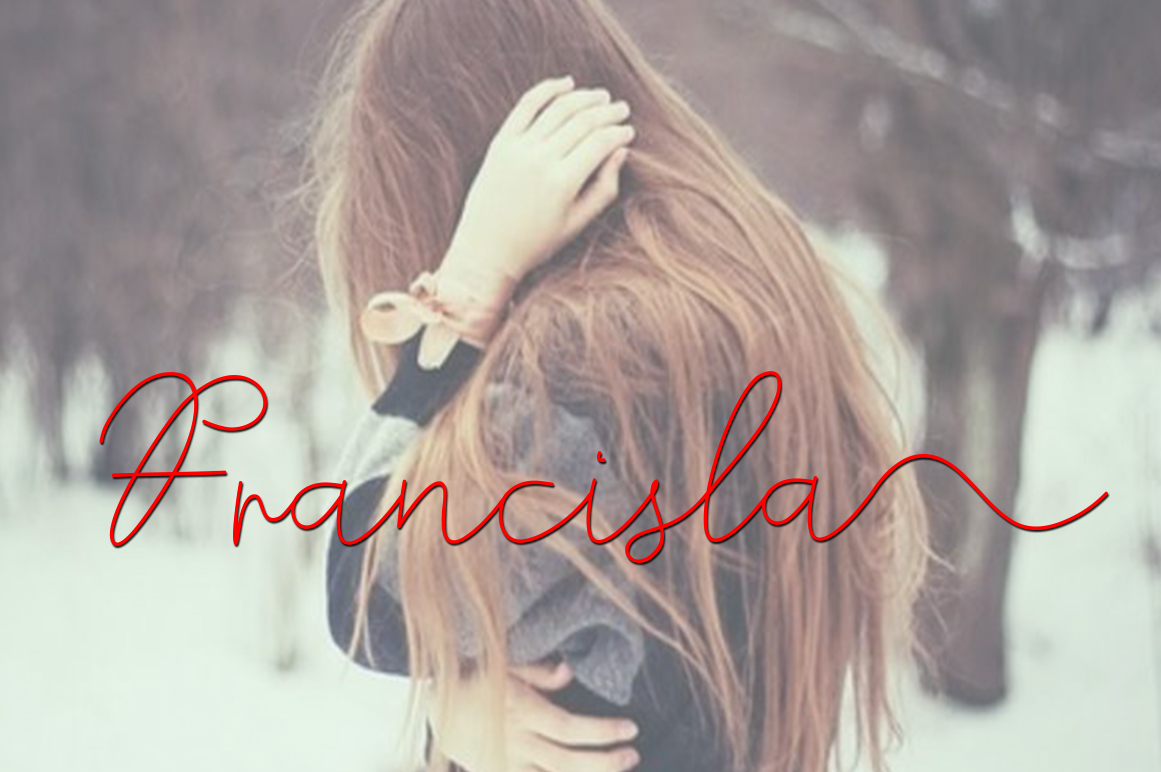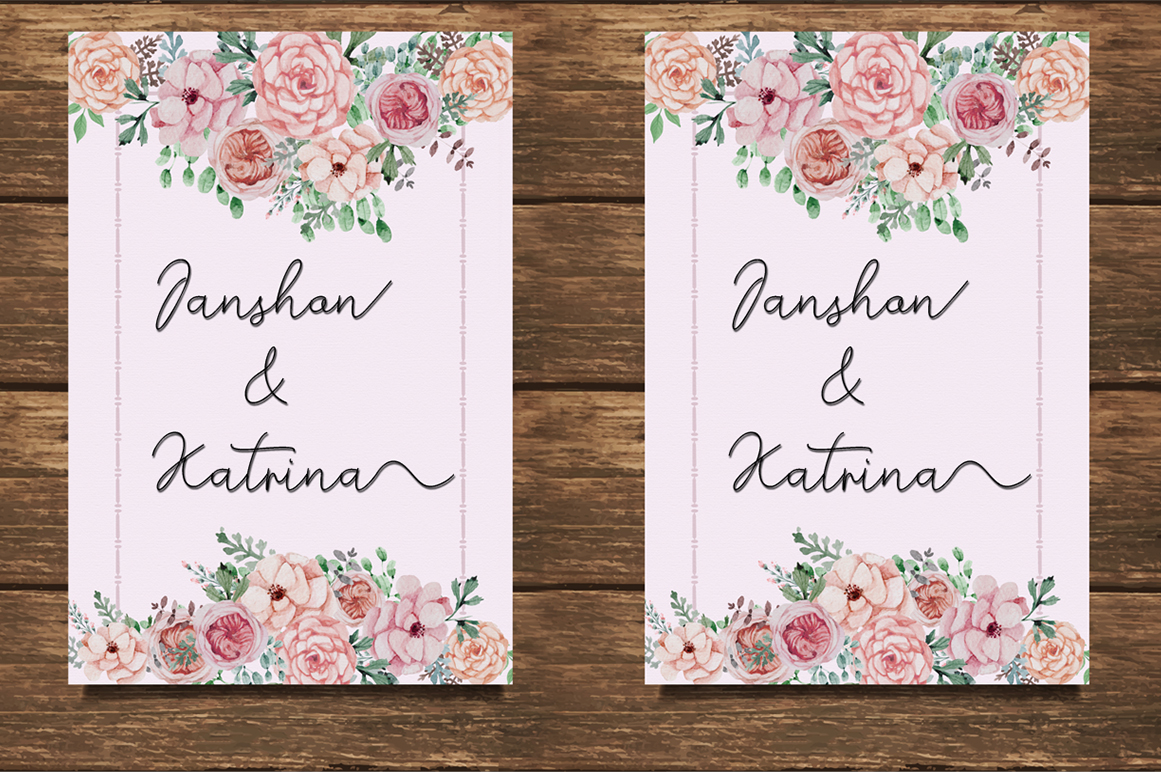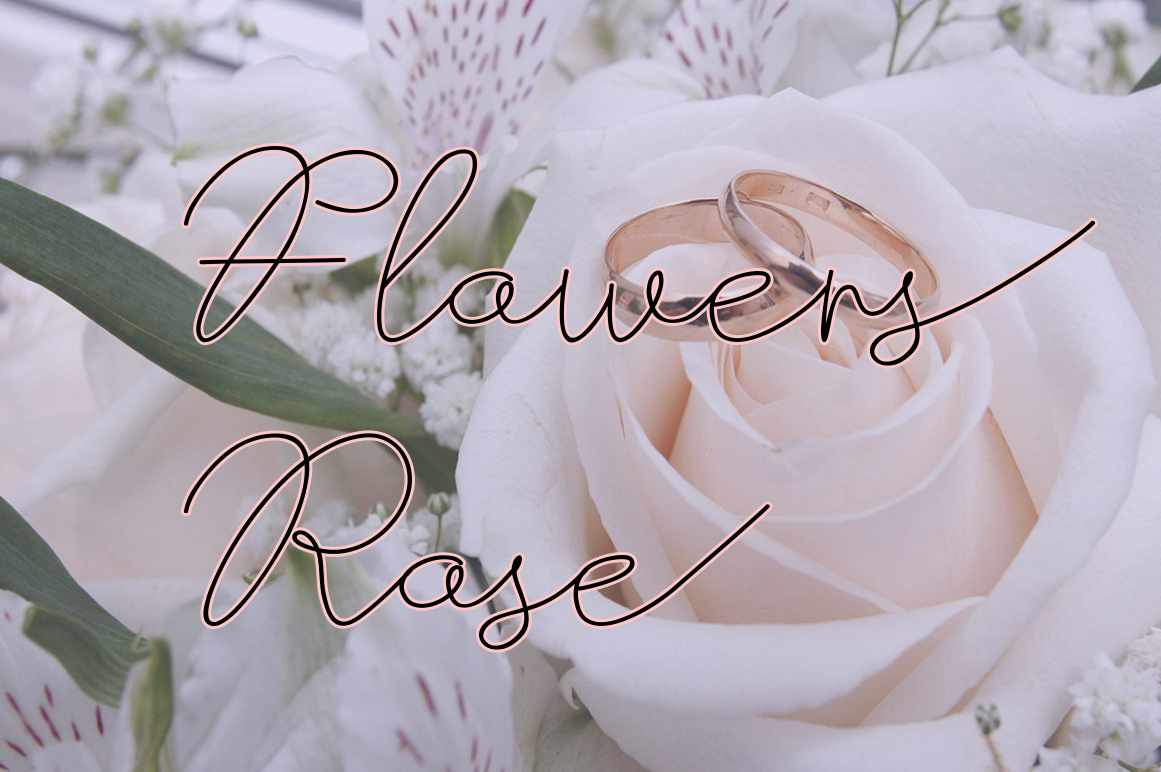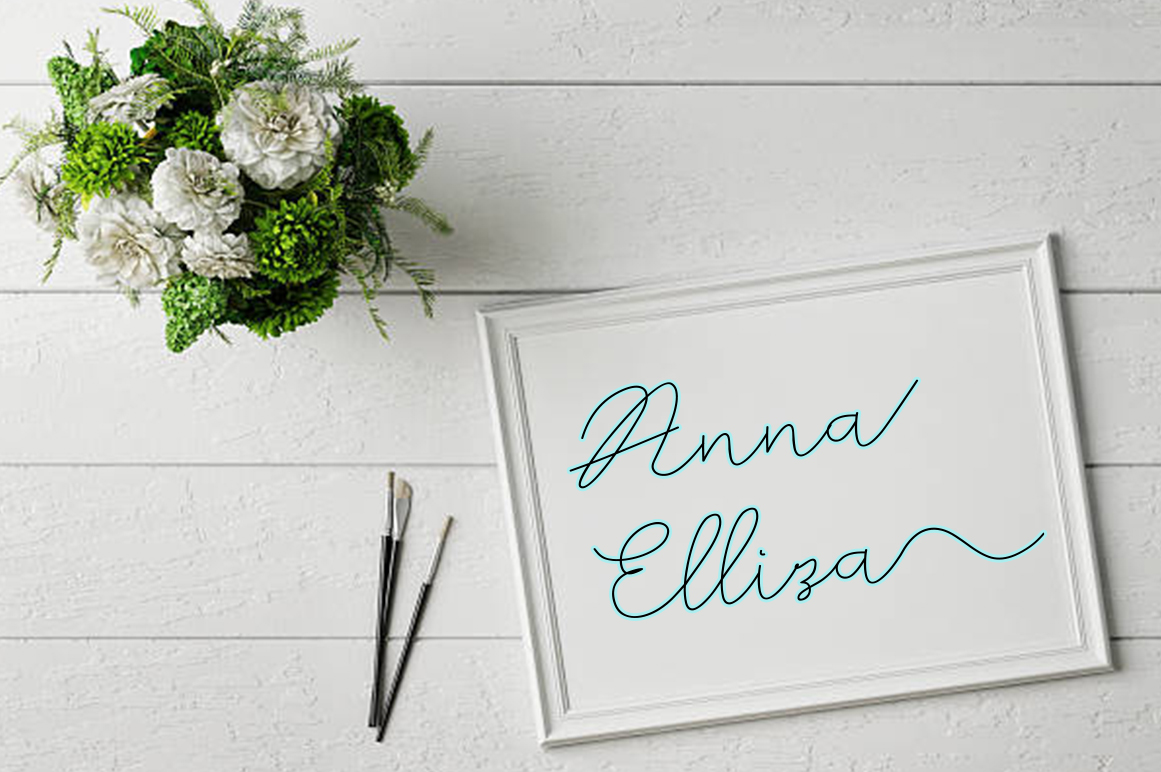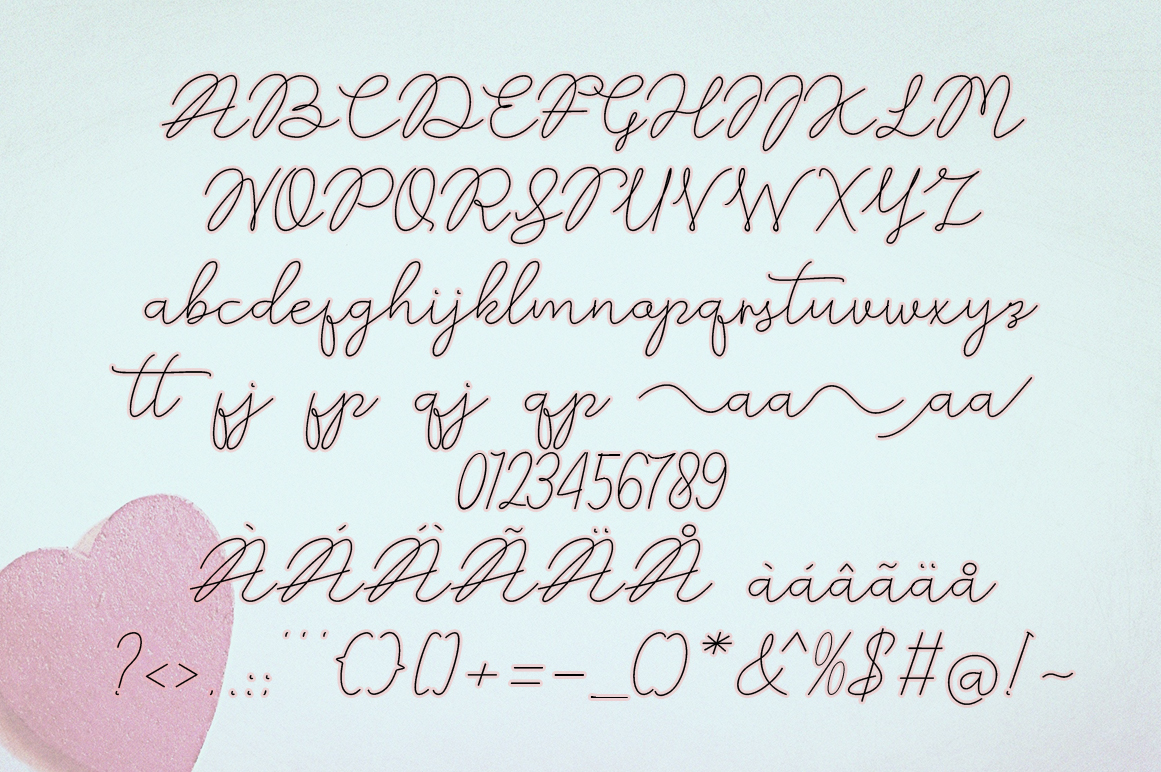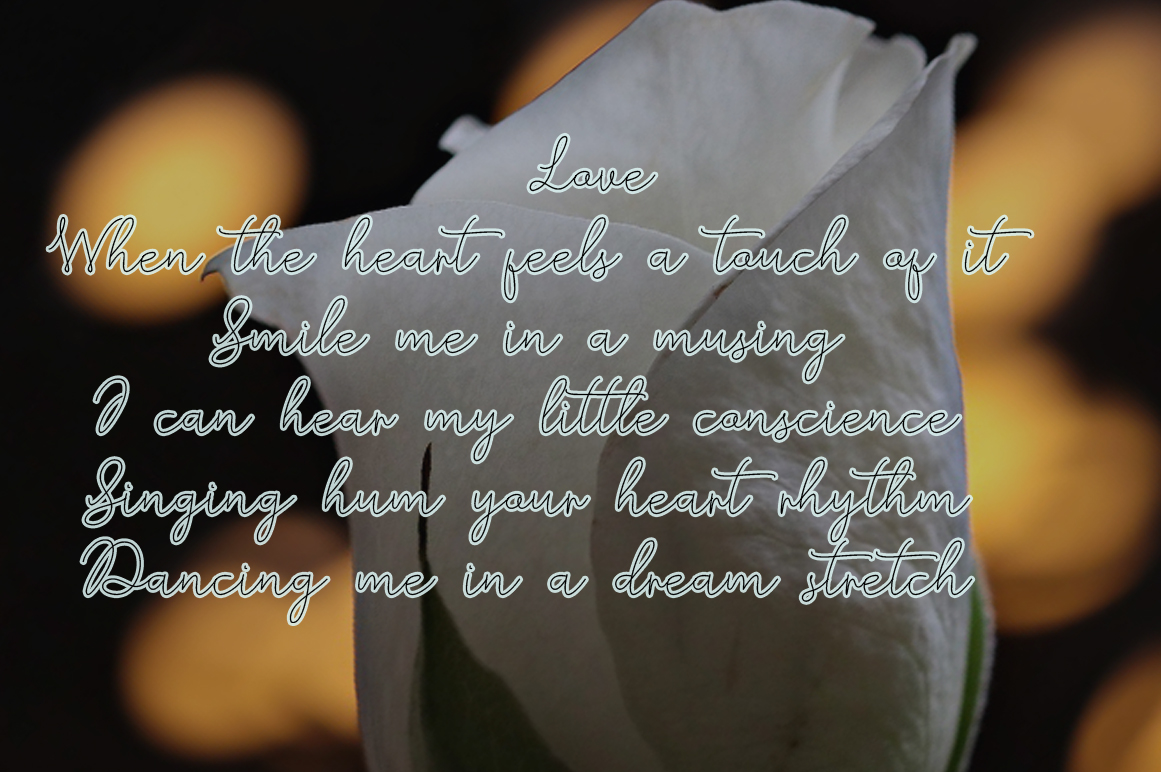
Astiola Font: Elevate Your Designs with a Fresh, Modern Monoline Script
In the world of typography, fonts play a crucial role in conveying messages, expressing emotions, and creating visual identities. For designers and crafters, finding the perfect font can be a daunting task, especially when looking for something that stands out from the crowd. This is where Astiola Font comes into play – a fresh, modern monoline script that features a calligraphic style, perfect for adding a touch of elegance and sophistication to your designs.
What is Astiola Font?
Astiola Font is a modern monoline script that boasts a calligraphic style, making it an excellent choice for designers and crafters looking for a font that exudes elegance and refinement. Its monoline design ensures that the font remains clean and simple, while the calligraphic style adds a touch of flair and personality. This unique combination makes Astiola Font versatile and suitable for a wide range of design projects, from branding and advertising to packaging and digital media.
Key Features of Astiola Font
- Monoline Design: Astiola Font features a monoline design, which means that the font has a consistent line width throughout. This gives the font a clean and modern look, making it perfect for designs that require a sleek and sophisticated feel.
- Calligraphic Style: The calligraphic style of Astiola Font adds a touch of elegance and refinement to the font. The subtle variations in line width and the flowing connections between letters create a sense of movement and fluidity.
- Fresh and Modern: Astiola Font is a fresh and modern take on traditional script fonts. Its unique design ensures that it stands out from the crowd, making it perfect for designers and crafters looking for a font that will elevate their designs.
- Versatile: Astiola Font is incredibly versatile and can be used for a wide range of design projects, from branding and advertising to packaging and digital media.
Why Choose Astiola Font?
There are many reasons why designers and crafters should consider choosing Astiola Font for their next project. Here are a few:
- Elegance and Sophistication: Astiola Font exudes elegance and sophistication, making it perfect for designs that require a refined and luxurious feel.
- Unique and Eye-Catching: The unique design of Astiola Font ensures that it stands out from the crowd, making it perfect for designers and crafters looking for a font that will grab attention.
- Easy to Read: Despite its elegant and refined design, Astiola Font is incredibly easy to read, making it perfect for designs that require a clear and concise message.
- Highly Versatile: Astiola Font can be used for a wide range of design projects, making it an excellent addition to any designer’s or crafter’s font library.
How to Use Astiola Font in Your Designs
Astiola Font is incredibly easy to use and can be incorporated into a wide range of design projects. Here are a few ideas to get you started:
- Branding and Advertising: Use Astiola Font to create elegant and sophisticated branding and advertising materials, such as logos, business cards, and brochures.
- Packaging: Add a touch of elegance and refinement to your packaging designs with Astiola Font. Perfect for luxury brands, cosmetics, and high-end products.
- Digital Media: Use Astiola Font to create stunning digital media, such as social media graphics, website headers, and email newsletters.
- Crafting: Astiola Font is also perfect for crafters, who can use it to create beautiful and elegant craft projects, such as handmade cards, scrapbooking, and DIY home decor.
| Font Name | Astiola Font |
| Author | art design |
Astiola Font is a fresh, modern monoline script that features a calligraphic style, making it perfect for designers and crafters looking for a font that exudes elegance and sophistication. Its unique design, versatility, and ease of use make it an excellent addition to any designer’s or crafter’s font library. Whether you’re working on a branding project, packaging design, or crafting a handmade card, Astiola Font is sure to elevate your designs and add a touch of refinement and luxury.